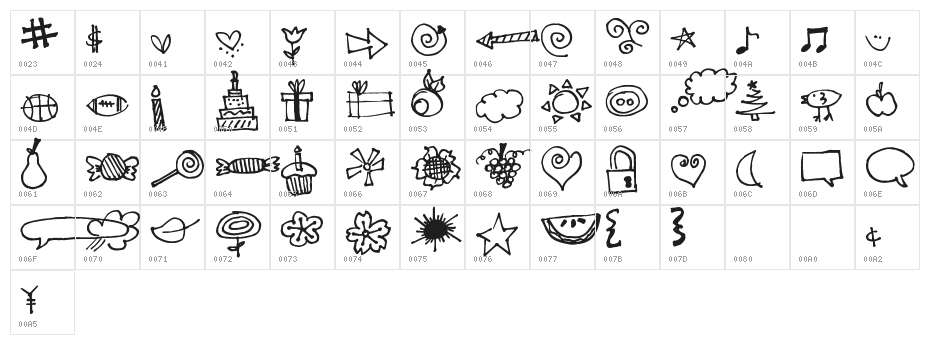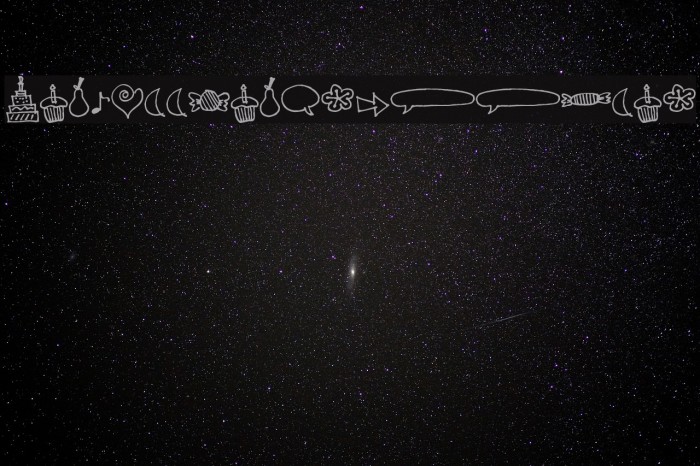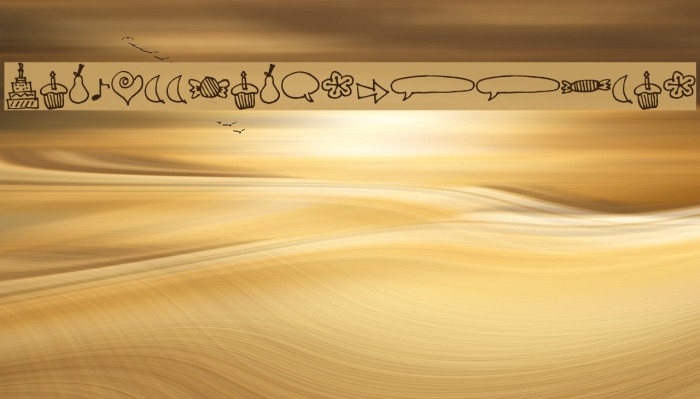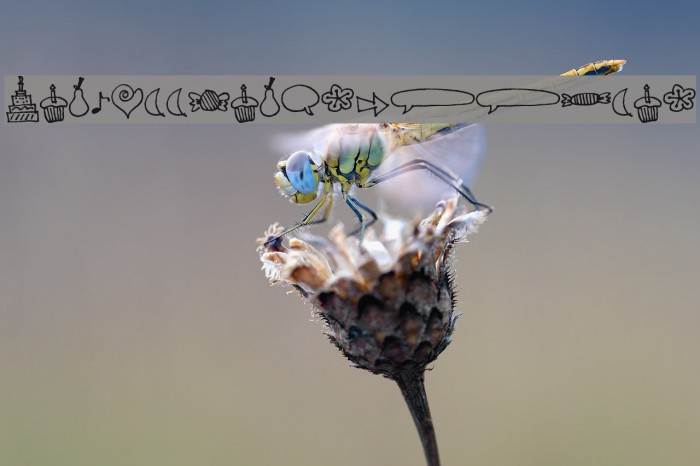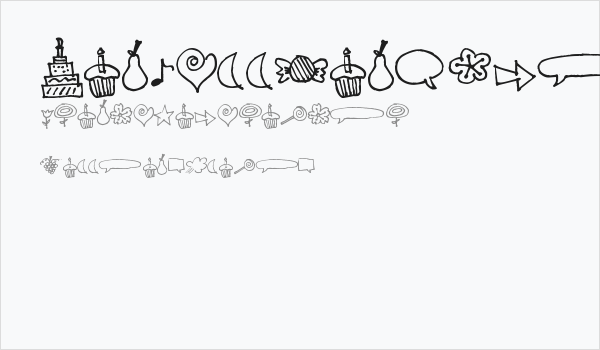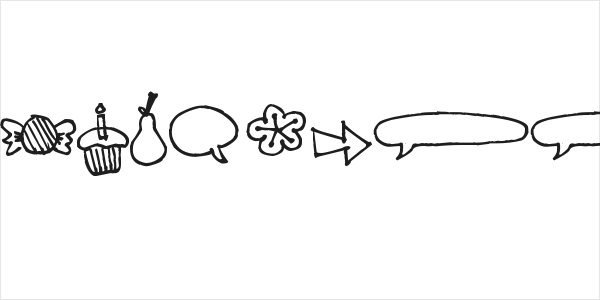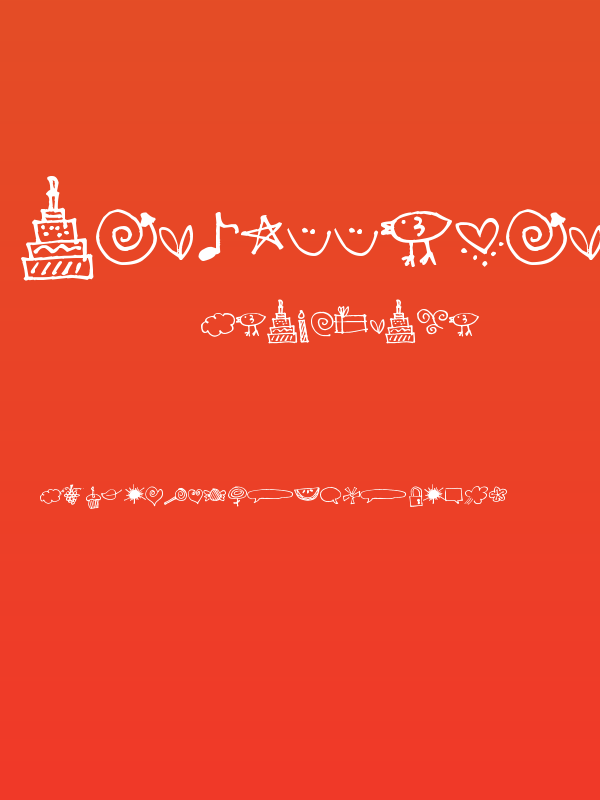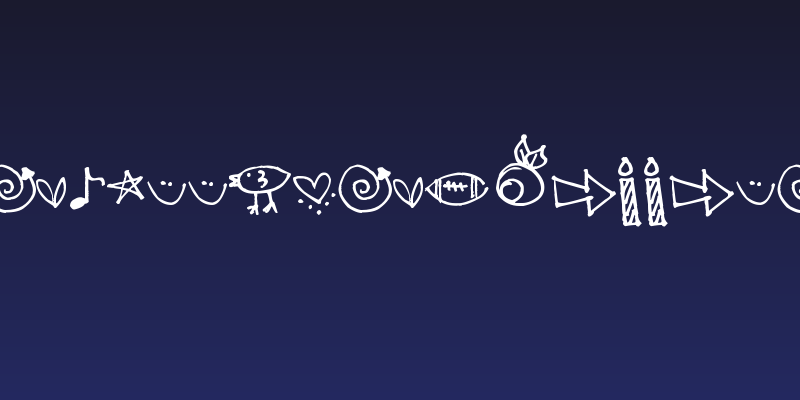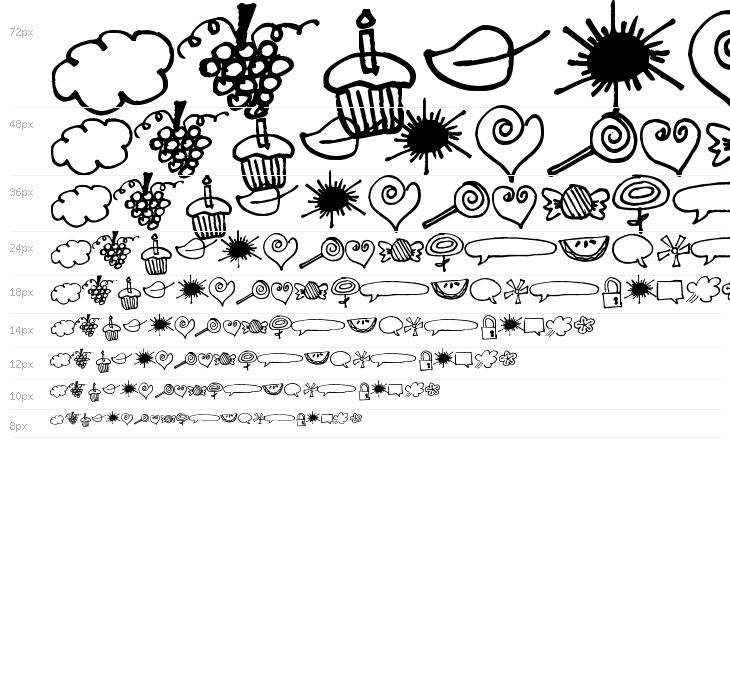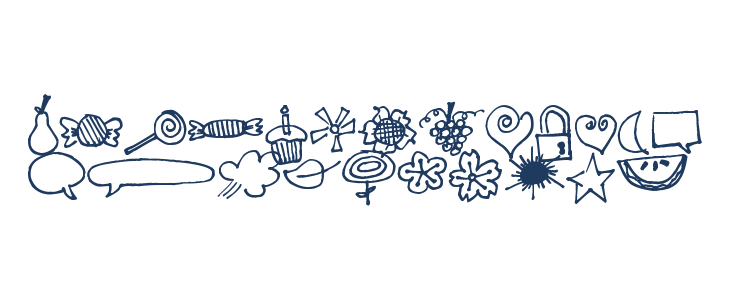
Pea Jillybean's Doodles Font
Pea Jillybean's Doodles Description
This is a playful and whimsical doodle font featuring a variety of hand-drawn symbols and icons. The characters include hearts, arrows, musical notes, stars, and various other quirky designs that convey a sense of fun and creativity. Each doodle is unique, with a sketch-like quality that adds a personal touch to any project. The font is ideal for informal and lighthearted designs, bringing a sense of joy and spontaneity. The line work is varied, with some elements having thicker strokes and others more delicate, creating a dynamic visual texture.
Overall StylePlayful, Whimsical
Use CaseDecorative elements, Illustrations, Informal designs
Proposed ProjectsPerfect for greeting cards, children's book illustrations, scrapbooking, and playful branding projects.